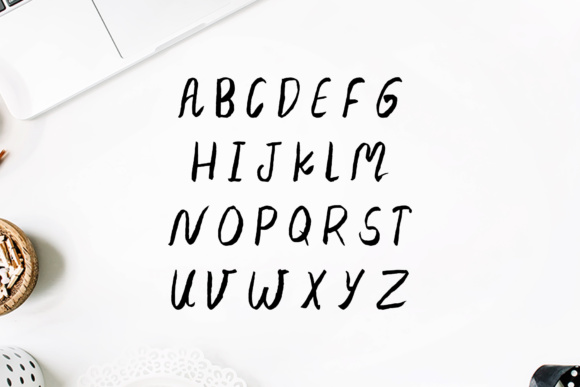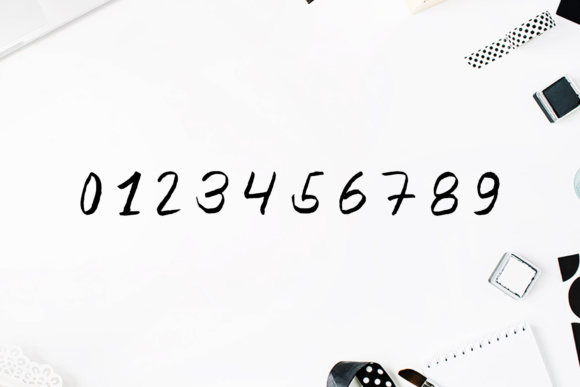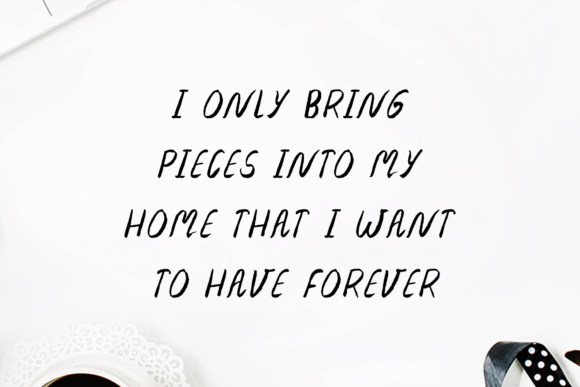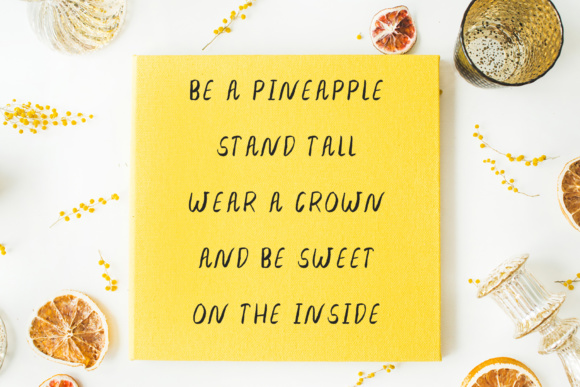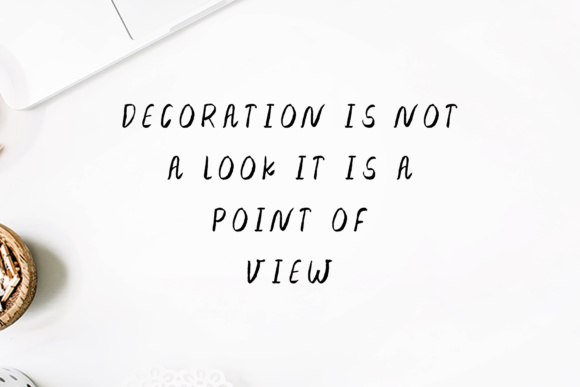
Introduction to Jennet Family Font
Jannet Script is a clean, classy, beautiful handwritten brush style font that contains 3 weights.
Jennet is perfect for creating authentic hand-lettered text quickly & easily Jennet can be used for various purposes such as branding, websites, clean designs, logos, headlines, banners and templates and much more.
Key Features of Jennet Family Font